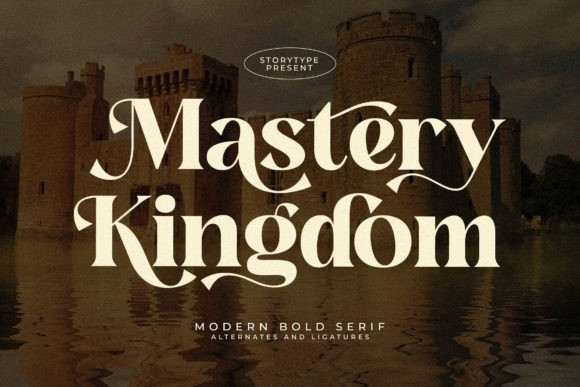
Mastery Kingdom Font
Grab our new font, Mastery Kingdom Serif, is a modern, bold, and elegant serif font with a chic appearance. No matter the topic, this font will be an incredible asset to your fonts’ library, as it has the potential to elevate any creation.